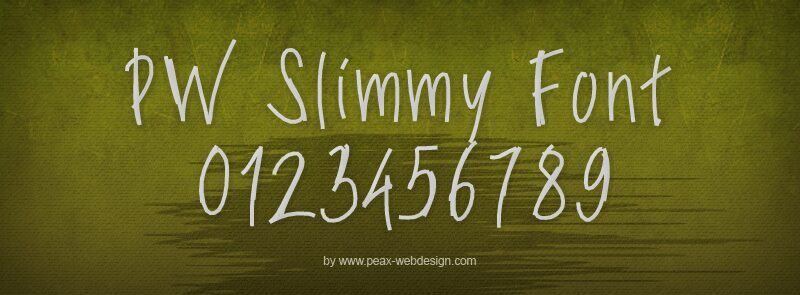
PW Slimy fonts by Peax Webdesign is a free handwritten display font with tall, loosely drawn letters and a wiry marker line. Uneven stroke widths, sharp turns, and wandering angles give the writing a restless, homemade edge.
Its scratchy contours can echo doodled monsters, messy comic art, or punk collage in poster designs. The same raw lettering suits album covers and skateboard merchandise. It feels especially at home in horror comedy and underground music, where rough drawing is part of the genre.